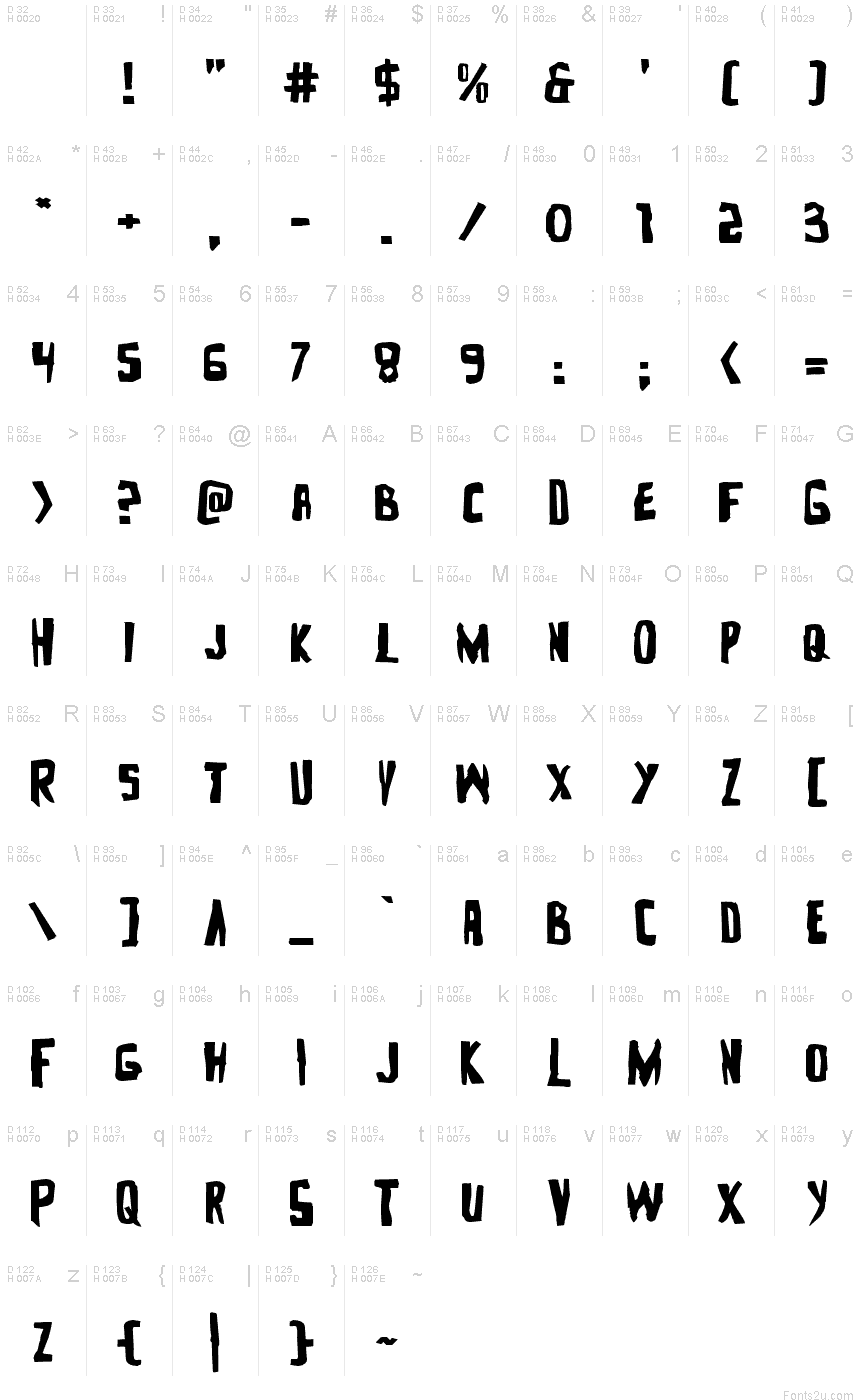
Zakenstein Expanded by Daniel Zadorozny of Iconian Fonts is a free graffiti display font with a rough, confrontational profile. The tall letters shift between narrow and broad forms, with uneven edges, abrupt angles, and blunt, heavy strokes. The irregular silhouettes keep every line restless.
Punk and street-art character suits gig posters, skate merchandise, and rebellious apparel branding, with lettering that feels cut or painted into the artwork. In music editorials, its jagged shapes can turn a title into part of the page's illustration rather than neutral typography.